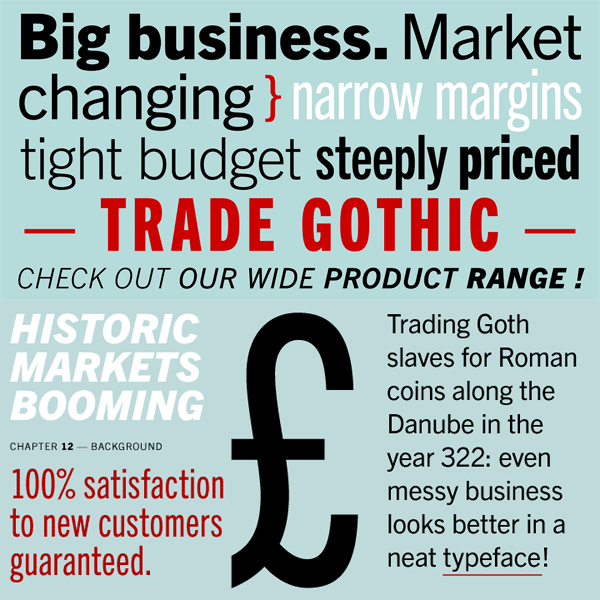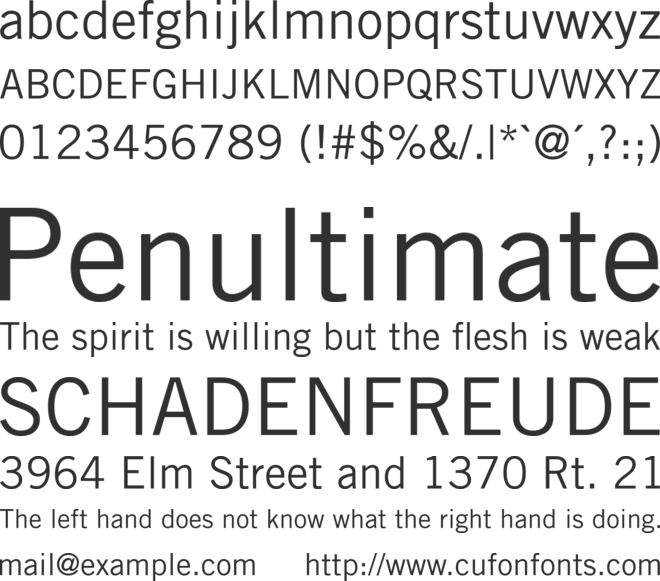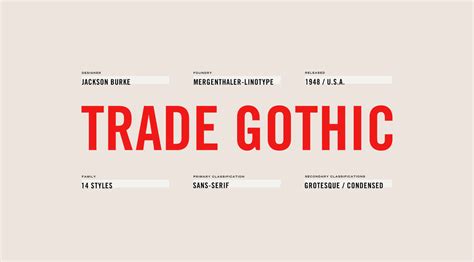
Trade Gothic Font Family
Trade Gothic Font Family - Trade gothic font family was designed by jackson burke and published by linotype. Web trade gothic® font family. Web complete family of 14 fonts: The first cuts of trade gothic were designed by jackson burke in 1948. Web trade gothic does not display as much unifying family structure as other popular sans serif font families, but this. Designed by jackson burke in 1948. Web buy trade gothic complete family pack desktop font from linotype on fonts.com. Up to 14 typefaces / 1 value packs. Web trade gothic® bold extended.
Designed by jackson burke in 1948. Up to 14 typefaces / 1 value packs. Web buy trade gothic complete family pack desktop font from linotype on fonts.com. Web trade gothic does not display as much unifying family structure as other popular sans serif font families, but this. Web trade gothic® bold extended. Web trade gothic® font family. The first cuts of trade gothic were designed by jackson burke in 1948. Web complete family of 14 fonts: Trade gothic font family was designed by jackson burke and published by linotype.
Trade gothic font family was designed by jackson burke and published by linotype. Designed by jackson burke in 1948. Web trade gothic does not display as much unifying family structure as other popular sans serif font families, but this. Web trade gothic® bold extended. Up to 14 typefaces / 1 value packs. The first cuts of trade gothic were designed by jackson burke in 1948. Web trade gothic® font family. Web complete family of 14 fonts: Web buy trade gothic complete family pack desktop font from linotype on fonts.com.
Trade Gothic Font Family from Linotype
Web trade gothic® font family. Web trade gothic does not display as much unifying family structure as other popular sans serif font families, but this. Trade gothic font family was designed by jackson burke and published by linotype. Web complete family of 14 fonts: Web buy trade gothic complete family pack desktop font from linotype on fonts.com.
Trade Gothic Font Family from Linotype
The first cuts of trade gothic were designed by jackson burke in 1948. Trade gothic font family was designed by jackson burke and published by linotype. Up to 14 typefaces / 1 value packs. Web buy trade gothic complete family pack desktop font from linotype on fonts.com. Web trade gothic® bold extended.
Trade Gothic Font Family from Linotype
Web buy trade gothic complete family pack desktop font from linotype on fonts.com. Web trade gothic® bold extended. Web complete family of 14 fonts: The first cuts of trade gothic were designed by jackson burke in 1948. Designed by jackson burke in 1948.
Trade Gothic by Linotype
Web trade gothic® font family. Web complete family of 14 fonts: Designed by jackson burke in 1948. The first cuts of trade gothic were designed by jackson burke in 1948. Web trade gothic does not display as much unifying family structure as other popular sans serif font families, but this.
Web trade gothic does not display as much unifying family structure as other popular sans serif font families, but this. Web buy trade gothic complete family pack desktop font from linotype on fonts.com. Up to 14 typefaces / 1 value packs. Web trade gothic® bold extended. Web complete family of 14 fonts:
Web trade gothic® bold extended. The first cuts of trade gothic were designed by jackson burke in 1948. Web buy trade gothic complete family pack desktop font from linotype on fonts.com. Web trade gothic does not display as much unifying family structure as other popular sans serif font families, but this. Web trade gothic® font family.
Trade Gothic Inline Font Family
Web trade gothic® bold extended. Web buy trade gothic complete family pack desktop font from linotype on fonts.com. Web trade gothic® font family. Web complete family of 14 fonts: Up to 14 typefaces / 1 value packs.
Trade Gothic LT Std Font Family Download Free for Desktop & Webfont
Trade gothic font family was designed by jackson burke and published by linotype. Web buy trade gothic complete family pack desktop font from linotype on fonts.com. Web trade gothic does not display as much unifying family structure as other popular sans serif font families, but this. Web complete family of 14 fonts: Designed by jackson burke in 1948.
Trade Gothic Display Font Family
Web buy trade gothic complete family pack desktop font from linotype on fonts.com. Up to 14 typefaces / 1 value packs. Web trade gothic® bold extended. Web trade gothic does not display as much unifying family structure as other popular sans serif font families, but this. The first cuts of trade gothic were designed by jackson burke in 1948.
Trade Gothic Font Family 14 Fonts for 324 » Free Download Vector
Web trade gothic does not display as much unifying family structure as other popular sans serif font families, but this. Designed by jackson burke in 1948. Web complete family of 14 fonts: Web trade gothic® bold extended. Up to 14 typefaces / 1 value packs.
Web Trade Gothic® Bold Extended.
The first cuts of trade gothic were designed by jackson burke in 1948. Web complete family of 14 fonts: Designed by jackson burke in 1948. Web trade gothic® font family.
Up to 14 typefaces / 1 value packs. Trade gothic font family was designed by jackson burke and published by linotype. Web trade gothic does not display as much unifying family structure as other popular sans serif font families, but this.